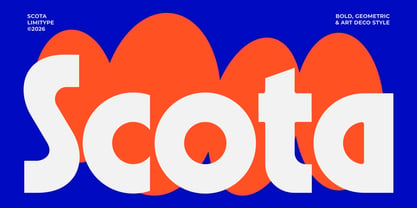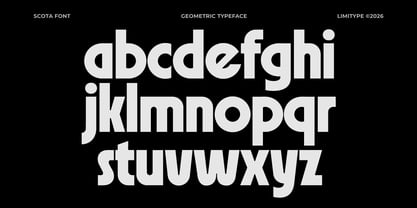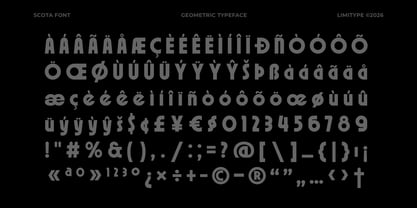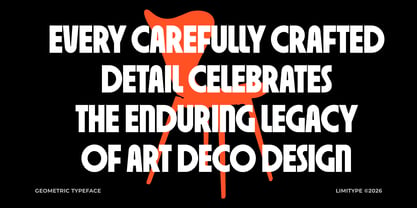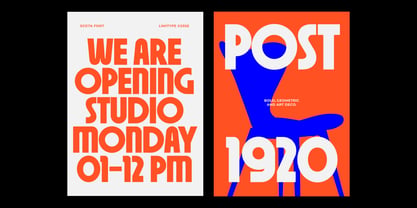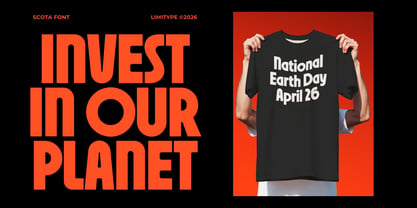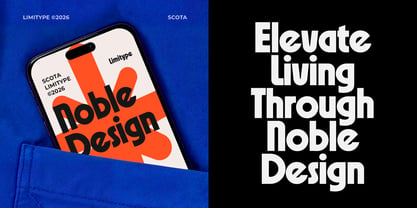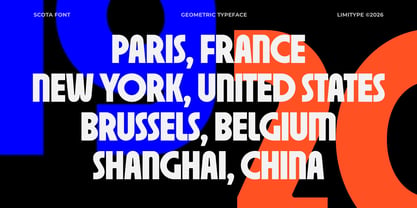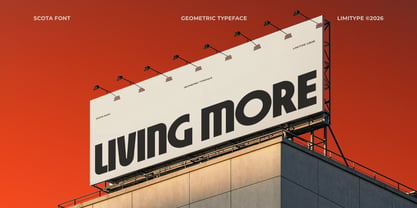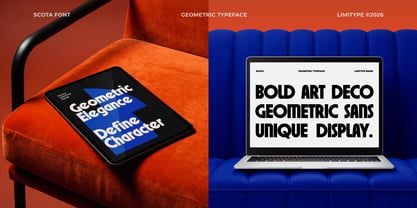
Scota
Scota is a bold display font featuring geometric forms and a modern Art Deco aesthetic, designed to create a sophisticated, luxurious, and attention grabbing visual presence. By combining strong letter structures with classic Art Deco influences, Scota delivers a distinctive character that stands out across a wide range of applications, including branding, logotypes, posters, packaging, editorial layouts, signage, luxury products, and creative visual campaigns. Its bold appearance, geometric precision, and elegant personality make Scota an ideal choice for designers seeking memorable typography that blends vintage luxury with contemporary appeal across both digital and print media.